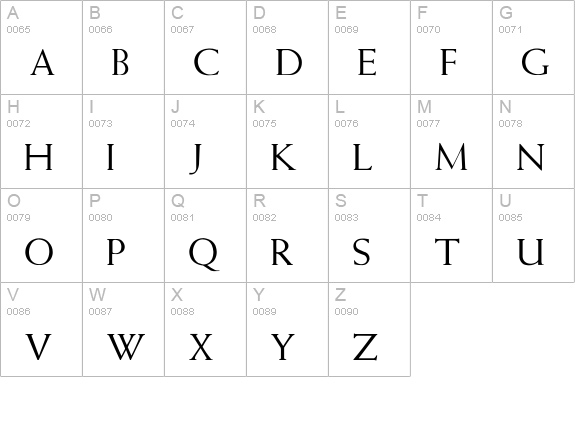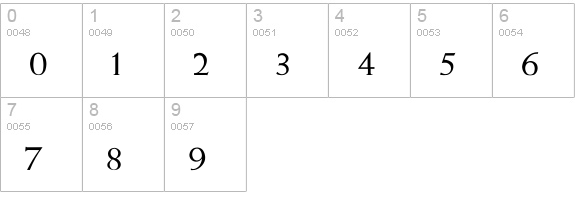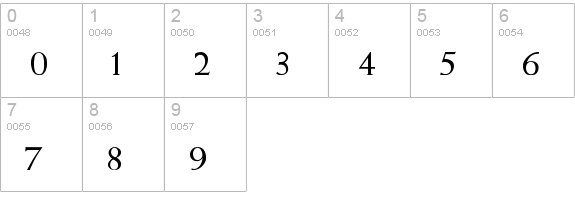
Amity-Normal Font Details
Amity-Normal is the standard, neutral variant in the Amity typeface family \xE2\x80\x94 well suited to general body text, paragraphs, and standard typographic work.
Amity-Normal font is a versatile and modern typeface that exudes elegance and sophistication. Its clean lines and balanced proportions make it perfect for a wide range of design projects, from branding to editorial design. The Amity-Normal font is easy to read, making it ideal for both print and digital applications. Best of all, this beautiful font is available for free download at FontsMarket.com. Whether you're a designer looking for a new typeface to add to your collection or a business owner in need of a stylish font for your marketing materials, Amity-Normal is the perfect choice. Download it today and add a touch of class to your next project.